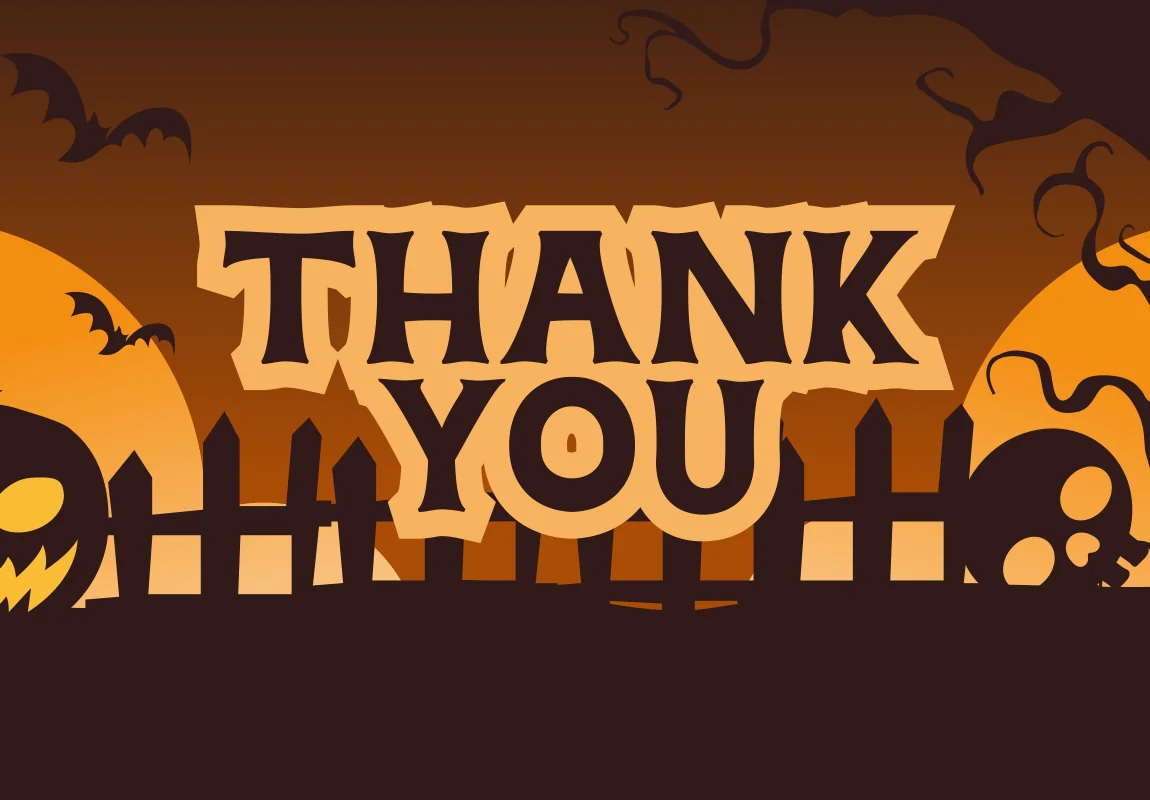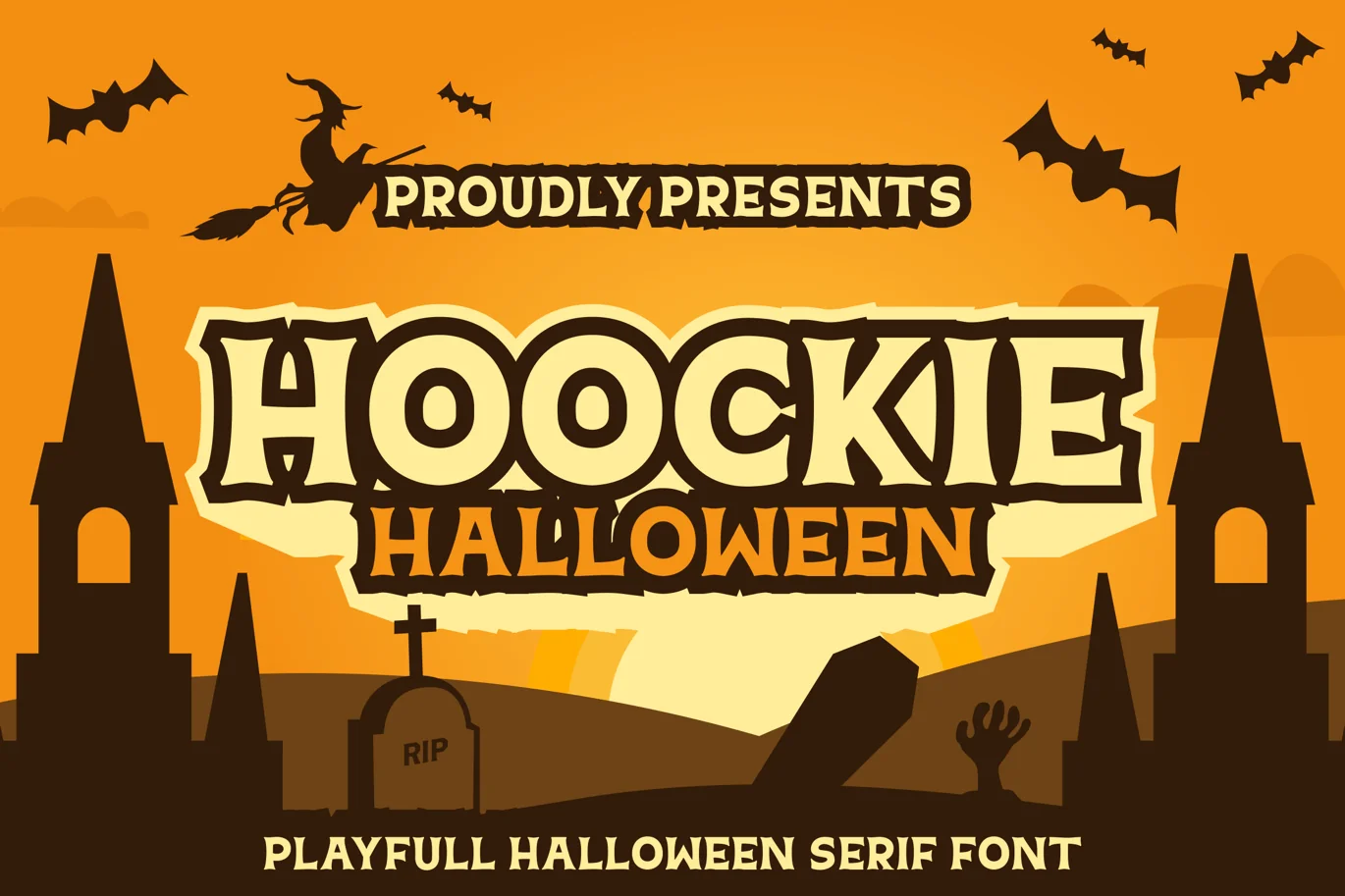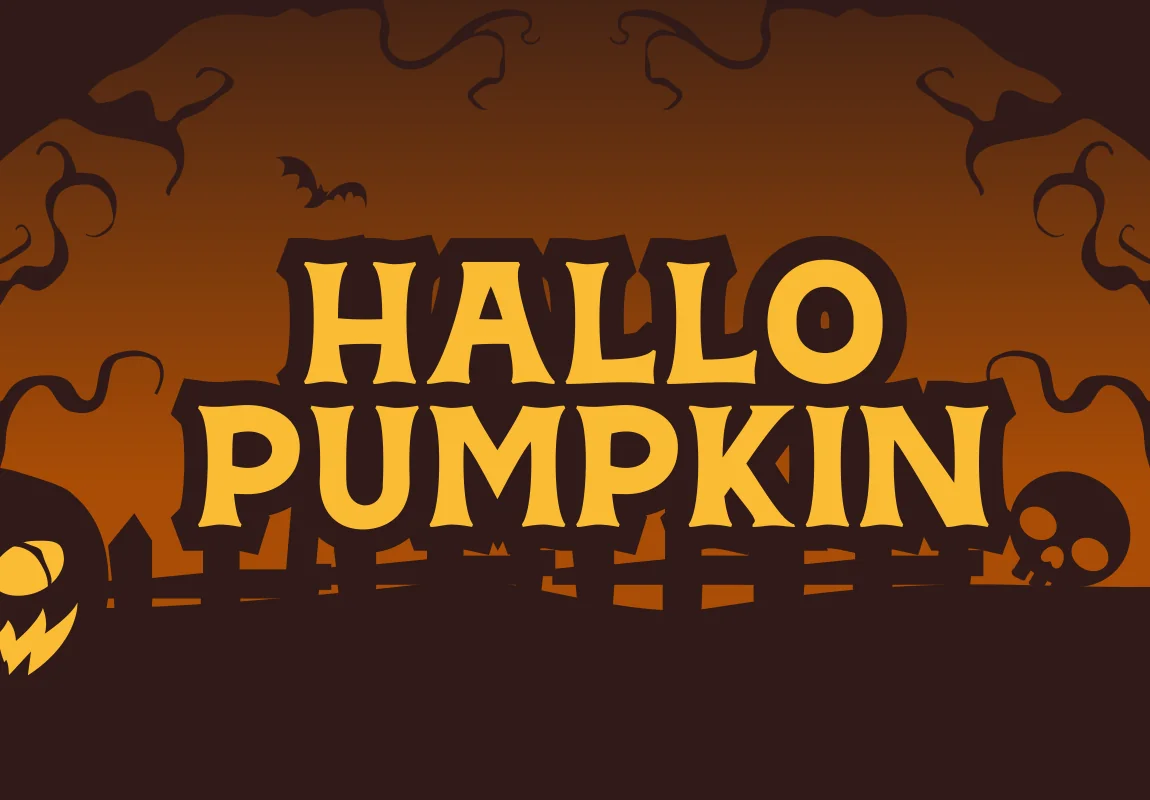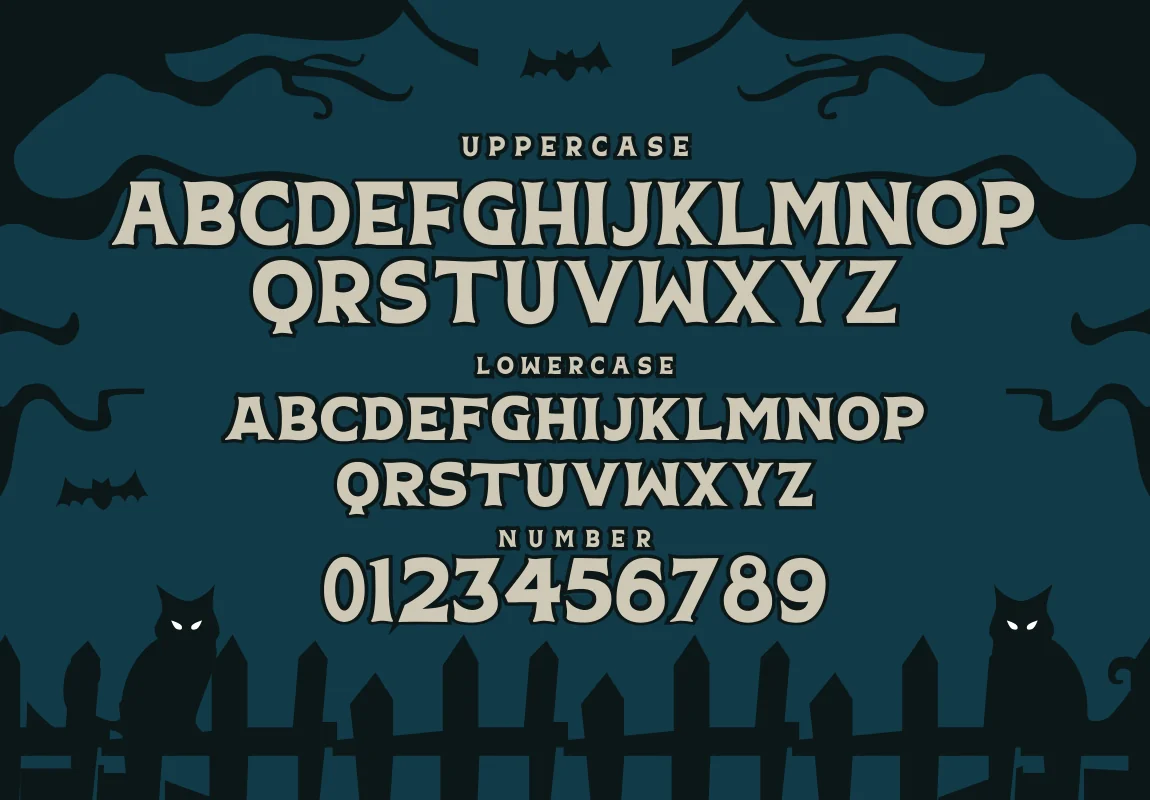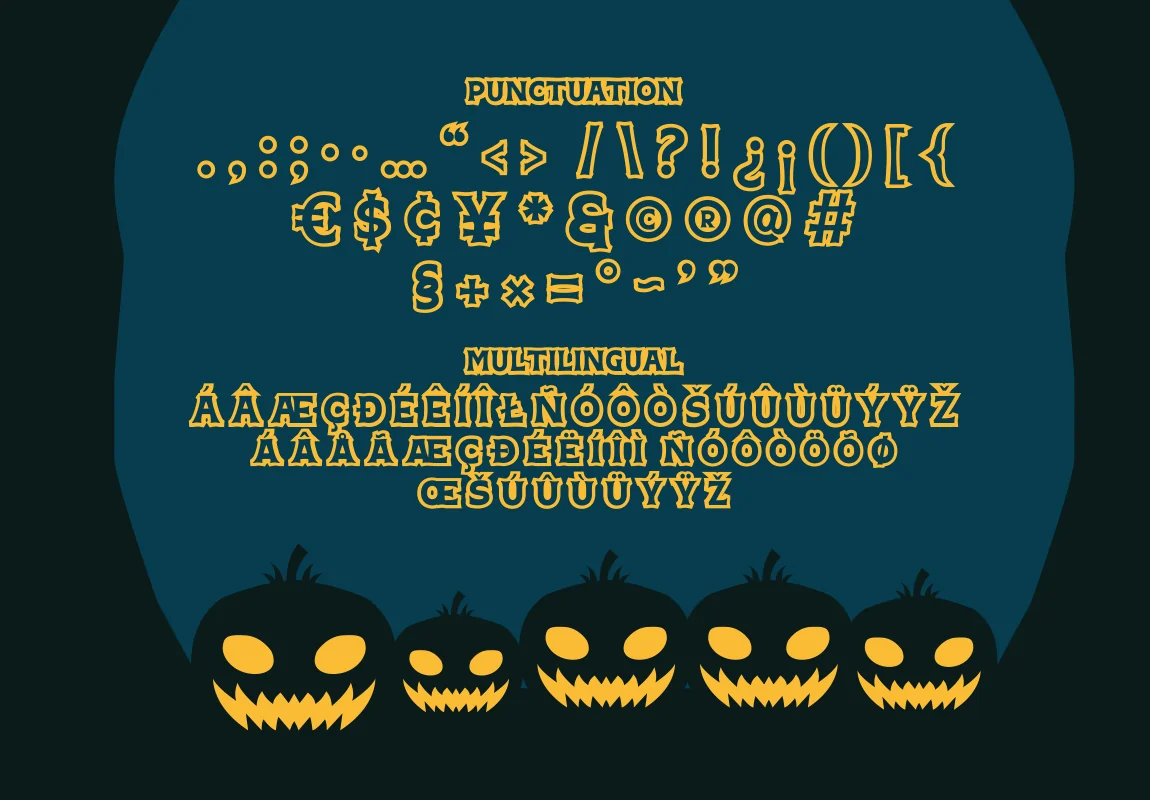
Hoockie Halloween Serif Font
Introducing our new product called Hoockie a Spooky Playful Serif Font, Hoockie inspired by Playful style with spooky style typography theme. This font is suitable for book covers, children’s books, comics, posters, packaging, merchandise, logotypes and much more.